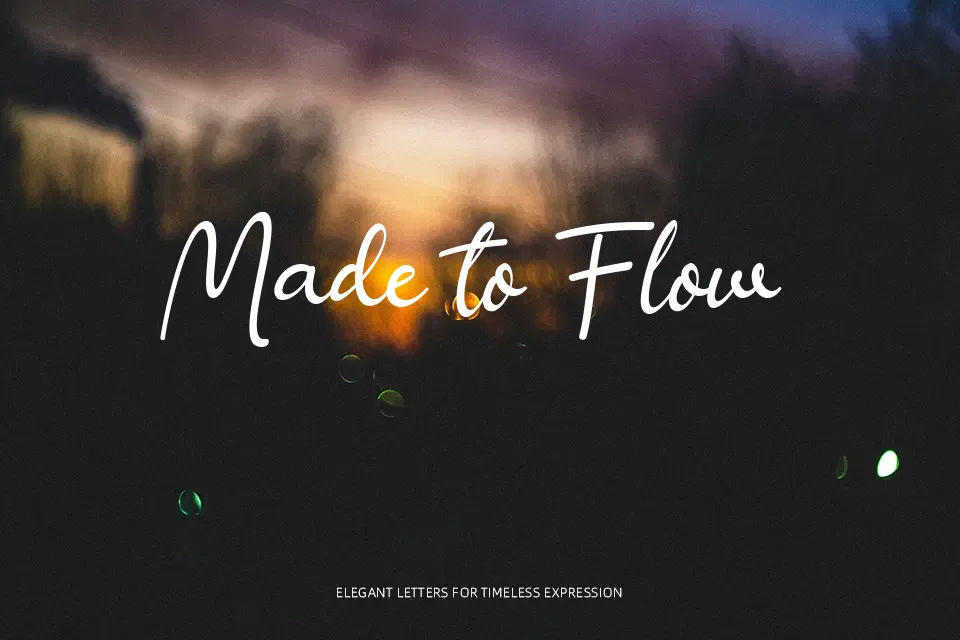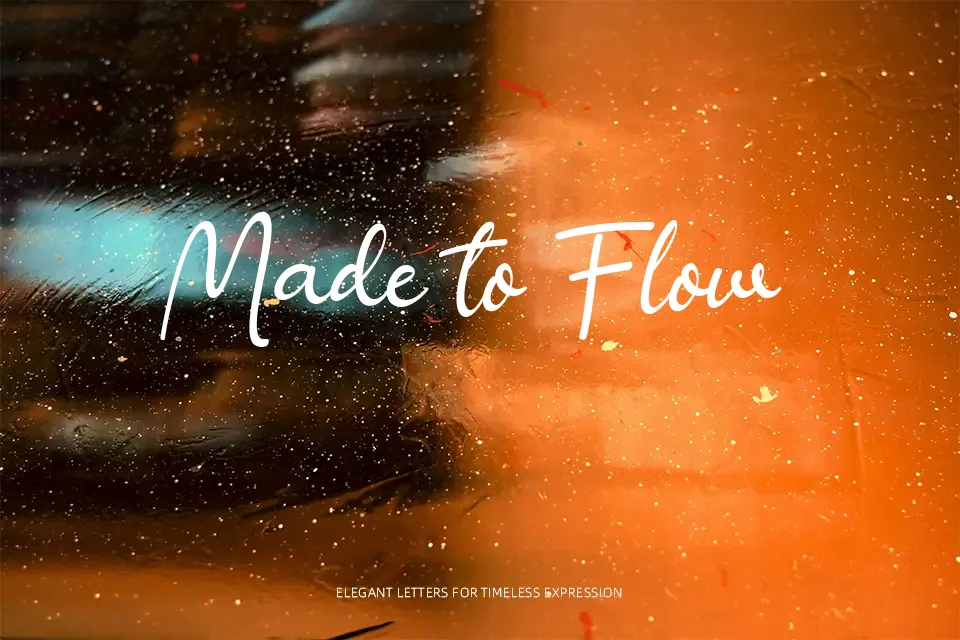
Angelina Malika Font
Angelina Malika is a script font crafted by Letterhanna Type Foundry that blends fluid handwritten strokes with polished calligraphic elegance. Each letter flows naturally into the next, creating a seamless cursive rhythm that feels both organic and sophisticated. The font includes a rich set of 595 glyphs featuring swash capitals, beginning and ending swash variants, and stylistic alternates that allow designers to customize the look of their text for a truly unique presentation. Its graceful baseline movement and delicate thick-to-thin stroke contrast give it a refined personality well suited for wedding stationery, invitation cards, brand identity projects, social media posts, and signature-style logos. The romantic and feminine character of Angelina Malika makes it particularly effective for fashion labels, beauty branding, and event graphics where an upscale handcrafted aesthetic is desired. The font is free for demo and personal use, while a commercial license must be purchased through the designer’s official website.
Perfect for branding, invitation, and signature, with a classic and calligraphy style.